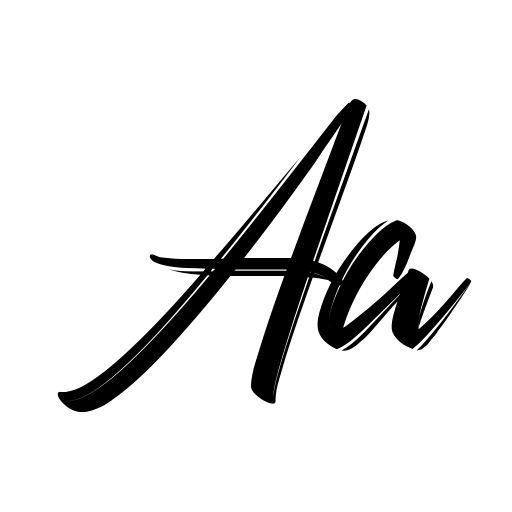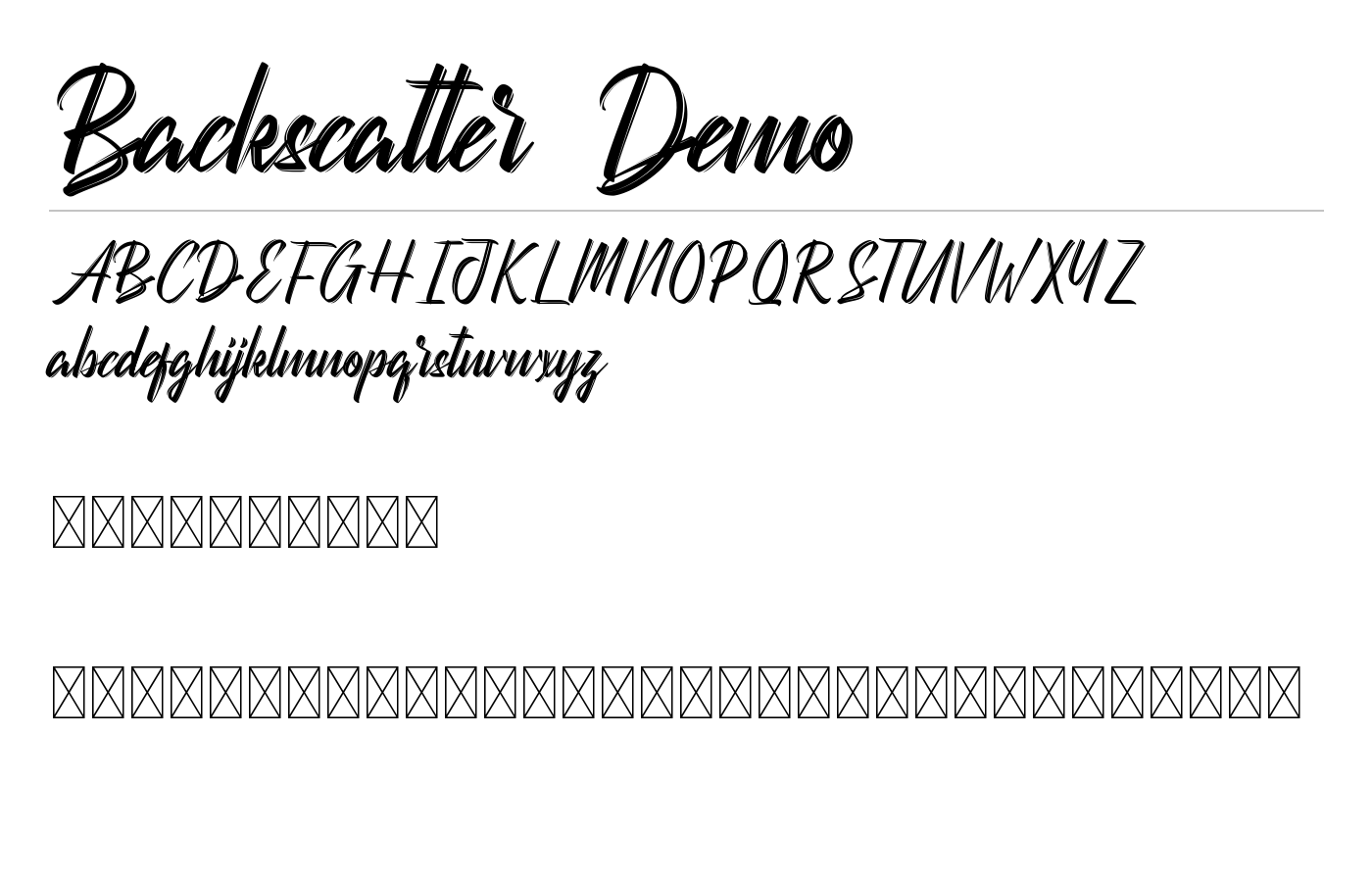
Backscatter Demo is a dynamic script font with a bold, brush-like style that conveys energy and creativity. Its lively, hand-drawn strokes and slightly slanted characters make it perfect for expressive headlines, logos, and branding that seek a modern, artistic flair. This font works well in designs that want to feel fresh, informal, and full of personality.
Backscatter Demo Font
About Backscatter Demo Font
| Font family | Backscatter Demo Font |